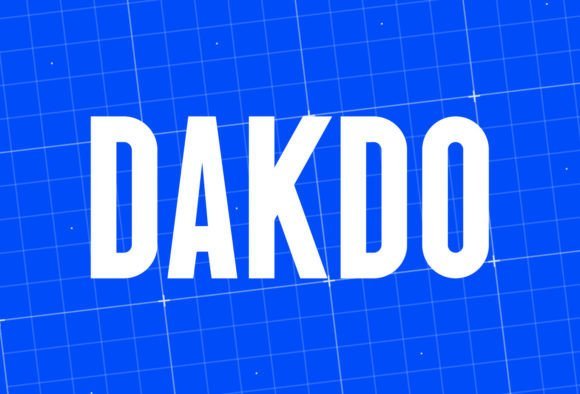
The Power of Typography: Unleashing the Energy of the Dakdo Font
Have you ever been sitting in a crowded stadium, surrounded by cheering fans and the electric energy of competition? That’s the kind of excitement the Dakdo Font is designed to capture. This visually striking typeface is crafted to evoke a sense of strength and dynamism, making it the perfect choice for sports and esports gaming.
As a designer, you’re always on the lookout for a font that can add an extra layer of emotion to your work. The Dakdo Font delivers just that, with its sharp lines and prominent angles exuding power and energy. And with its PUA encoding, you can easily access all the amazing glyphs and ligatures to take your designs to the next level.
Whether you’re creating a logo for a sports team or designing a website for an esports tournament, the Dakdo Font is a valuable tool in your arsenal. Its unique style and versatility make it a must-have for any designer looking to add some excitement to their work.
- Unique Characteristic: Dakdo Font features a unique blend of modern and traditional design elements, making it a versatile choice for various design projects.
Dakdo Font Review
I recently had the chance to dive into the Dakdo font, and I must say it’s an interesting mix of styles. Here are my thoughts on what works well and what doesn’t.
- The Dakdo font is highly legible, making it a great choice for body text. Its clean lines and open shapes ensure that the text is easy to read, even at smaller font sizes.
- The font’s unique style, which blends Asian and modern elements, adds a touch of sophistication to any design. It’s perfect for brands looking to stand out in a crowded market.
- Dakdo is highly versatile, making it suitable for a wide range of projects, from digital interfaces to print materials.
- One of the main drawbacks of the Dakdo font is its limited expressiveness. While it’s great for body text, it may not be the best choice for headlines or titles, where more emphasis is needed.
- The font’s Asian influences may not be suitable for all audiences, particularly in Western markets where these styles may be unfamiliar.
Overall, the Dakdo font is a solid choice for designers looking for a clean, legible, and versatile font. While it may have some limitations, its unique style and high legibility make it a great addition to any design project.
Tips for Getting the Most Out of Dakdo Font
For optimal results, use Dakdo Font with bold and italic styles to add emphasis to your text.
Experiment with different font sizes and colors to create visually appealing designs.
Dakdo Font is ideal for:
Creating modern and sleek designs for branding materials, social media graphics, and marketing collateral.
Adding a touch of elegance to wedding invitations, event materials, and luxury product packaging.
Alternatives to Dakdo Font
Playfair Display is a luxurious, elegant serif font ideal for high-end branding, luxury goods, and special occasions. It features intricate details and ornate flourishes, making it perfect for creating a sense of sophistication and refinement. Compared to Dakdo Font, Playfair Display is more formal and less modern, but still conveys a sense of elegance and sophistication.